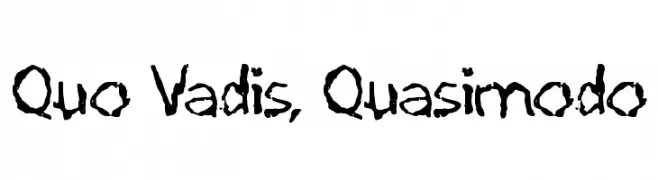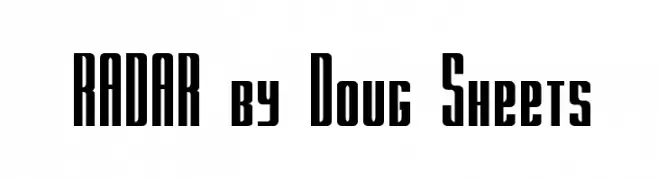
A bold, condensed font with high contrast and a modern, distorted style.
A rugged, distressed font with an organic, hand-drawn appearance.
A modern, geometric font with rounded edges and a futuristic style.